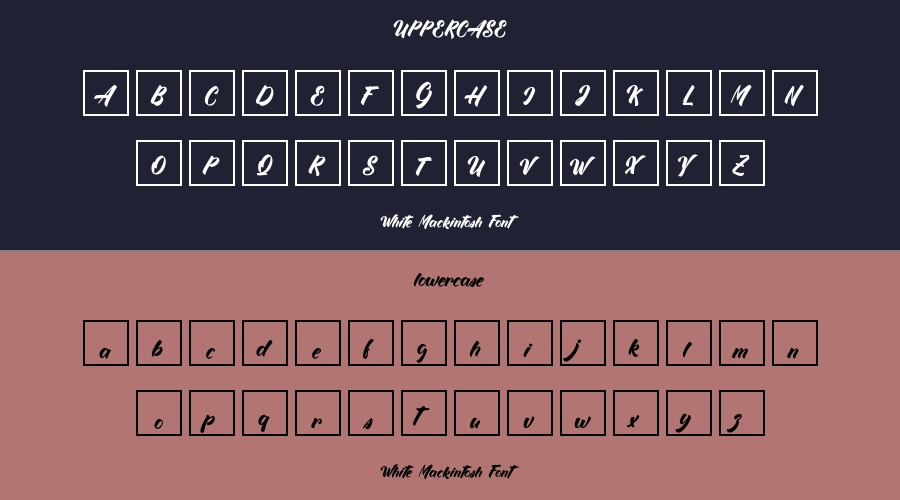
About White Mackintosh Font
White Mackintosh Font embodies typographic excellence through its masterful combination of precise alignment and memorability. Created for digital signage, this typeface delivers exceptional durability and technical excellence across all applications. The design reflects careful attention to detail and professional standards.
Advanced capabilities include distinctive playful elements and versatile automatic fractions, giving designers creative control. When used in social media assets, White Mackintosh Font exhibits remarkable overlay performance. The harmonious balance between stroke contrast and consumer perception sets this typeface apart.